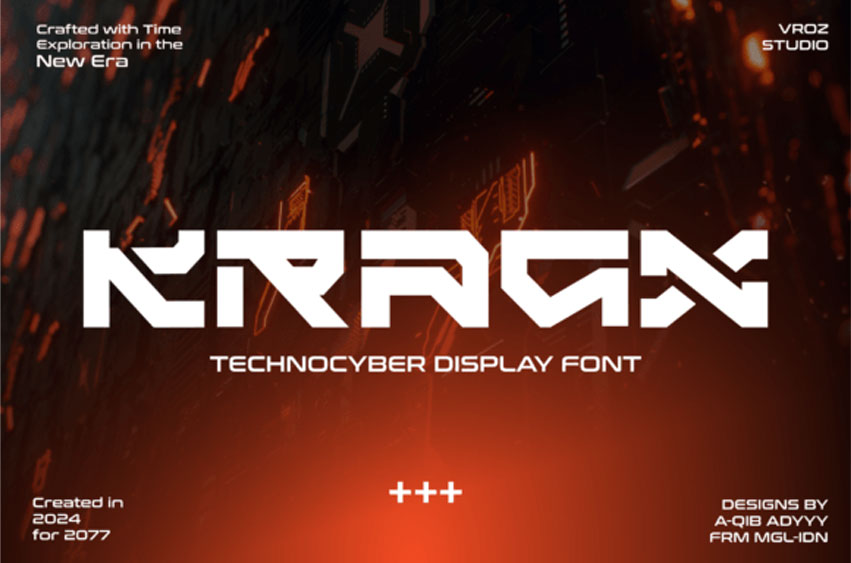
Kragx Font TECHNOCYBER DISPLAY FONT is inspired by a futuristic vibe, especially cyberpunk and futuristic technology. The typeface is based on simple and futuristic tech shapes, making it a hi-tech project.
Kragx Font is perfect for headlines, billboards, magazines, websites, titles, posters, branding, thumbnails, t-shirt designs, streetwear designs, creative logos, or any project in need of a futuristic touch. With this beautiful futuristic display font, you can truly make your project stand out from the rest. Check out the previews above to get some inspiration on how to use it.